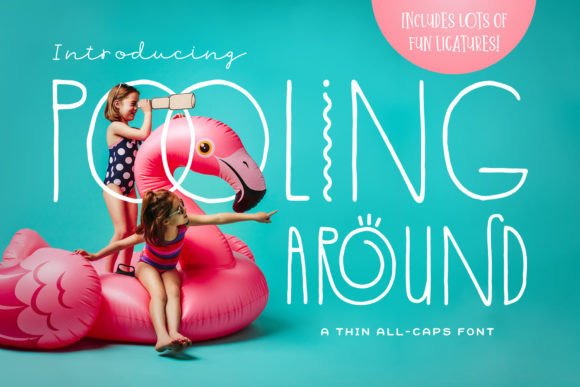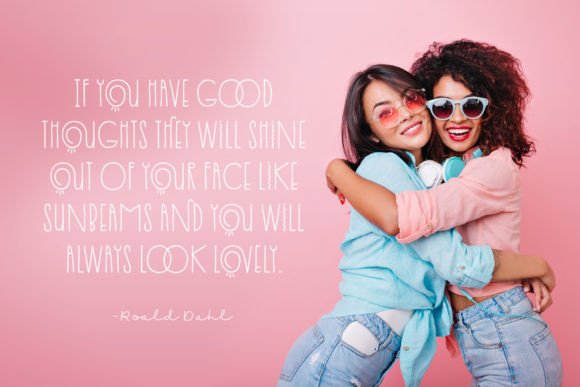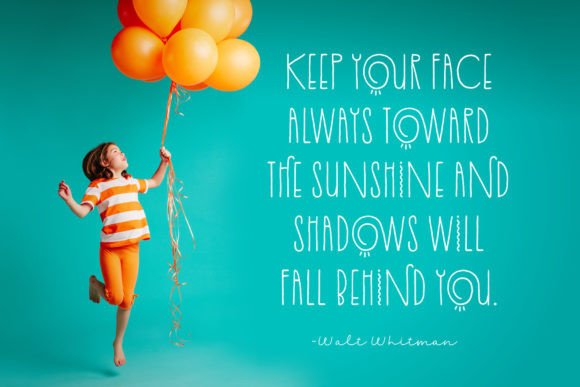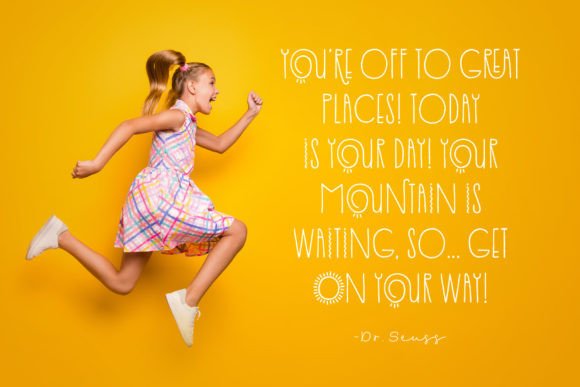
Pooling Around Font: A Playful Sans Serif for Cute Designs!
About the Pooling Around Font
The Pooling Around Font is here to transform your projects with its distinctive character and style. Introducing: Pooling Around! A sweet, summery, sans serif font that includes a bunch of playful ligatures. Standard ligatures will appear automatically in programs that support OpenType and have the feature turned on. They can also be found through a glyphs panel.
Pooling Around is ideally suited for headlines, short displays, and playful branding projects. Its lighthearted nature makes it perfect for summer promotions, children’s products, or anything requiring a friendly, approachable feel. Avoid using it for large blocks of text or body copy; the playful ligatures can become distracting and hinder readability in longer passages. It also isn’t suitable for UI elements where clarity and legibility are paramount.
Pairing Pooling Around with a clean sans-serif like Lato for body text provides excellent contrast and readability. For a more sophisticated look, consider pairing it with a classic serif like Garamond for a touch of elegance. Alternatively, a geometric sans-serif such as Futura could create a modern, balanced aesthetic.
The font’s core personality is undeniably playful and friendly, yet retains a contemporary feel. Its rounded forms and ligatures contribute to a lighthearted and approachable visual style.
Pooling Around Font Example